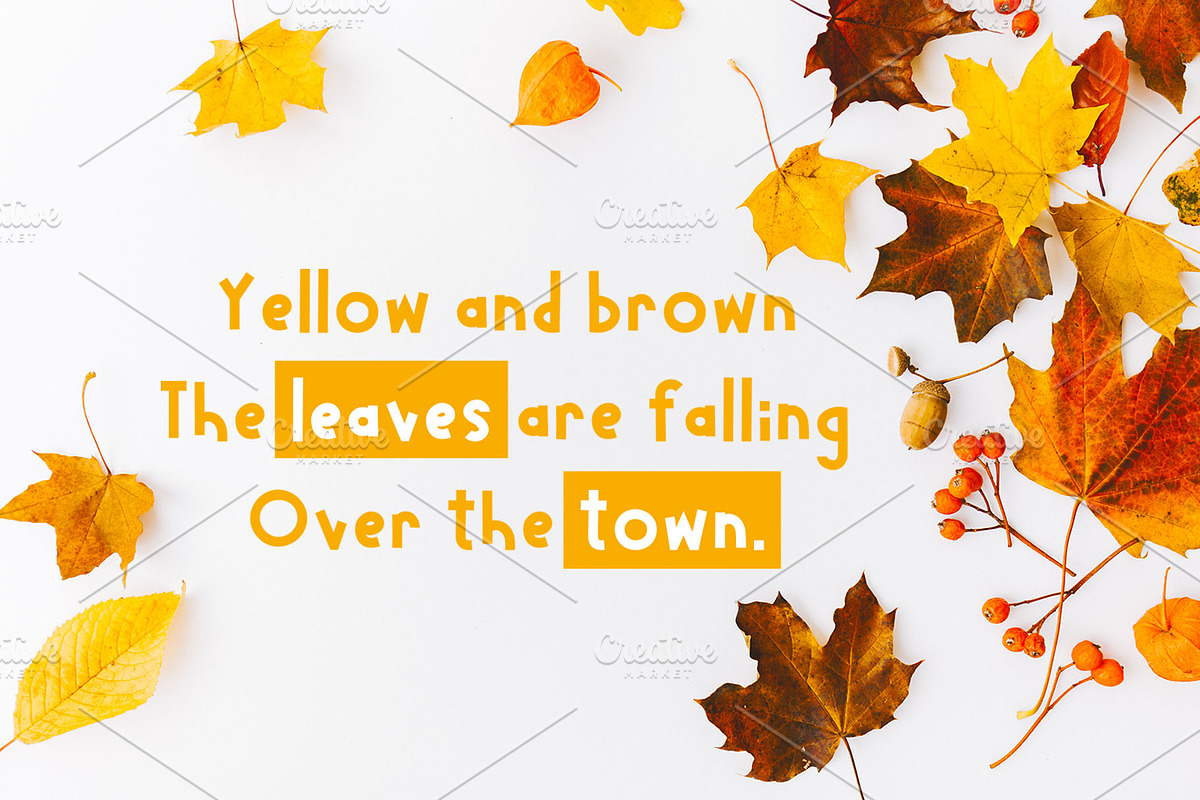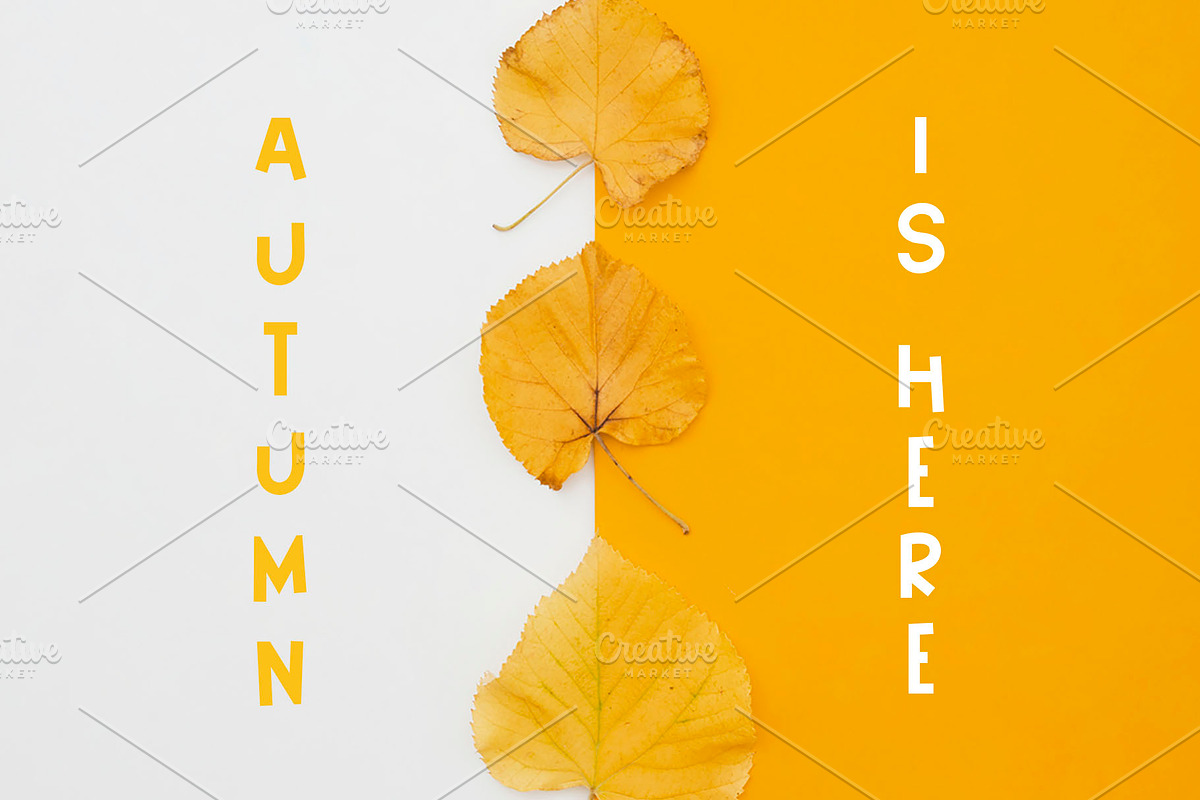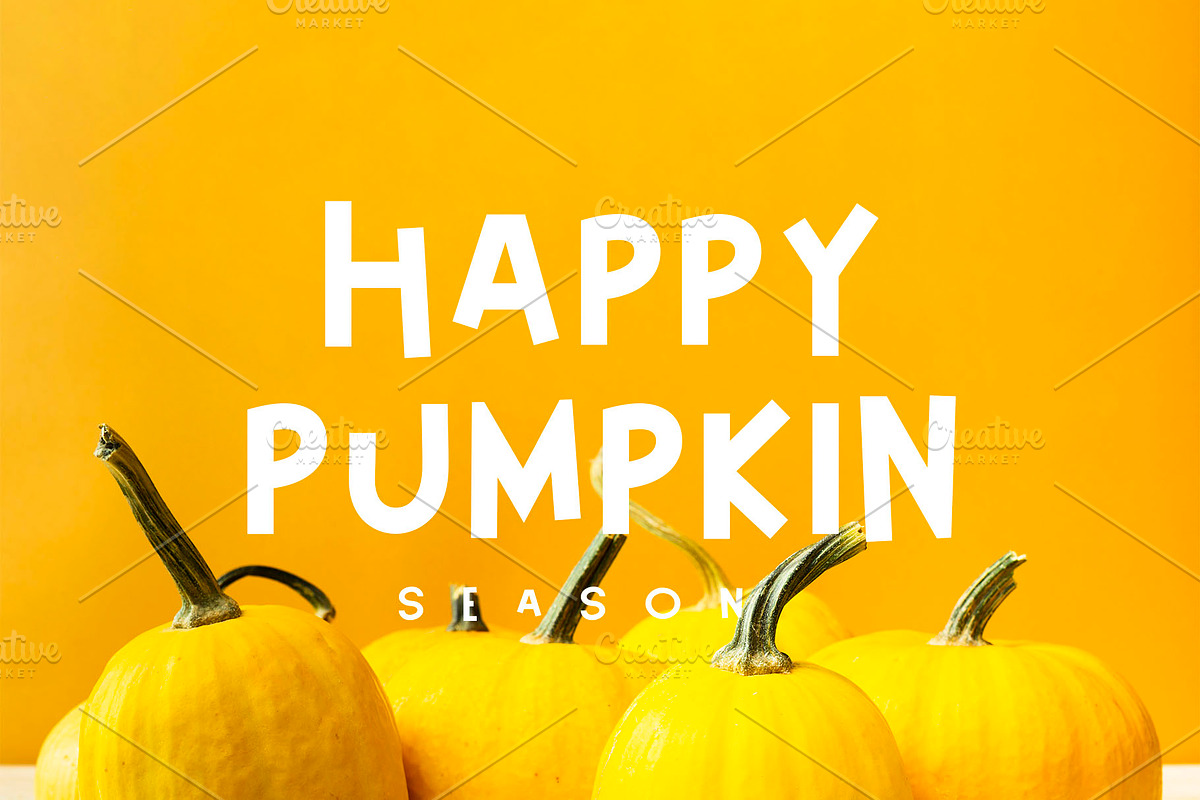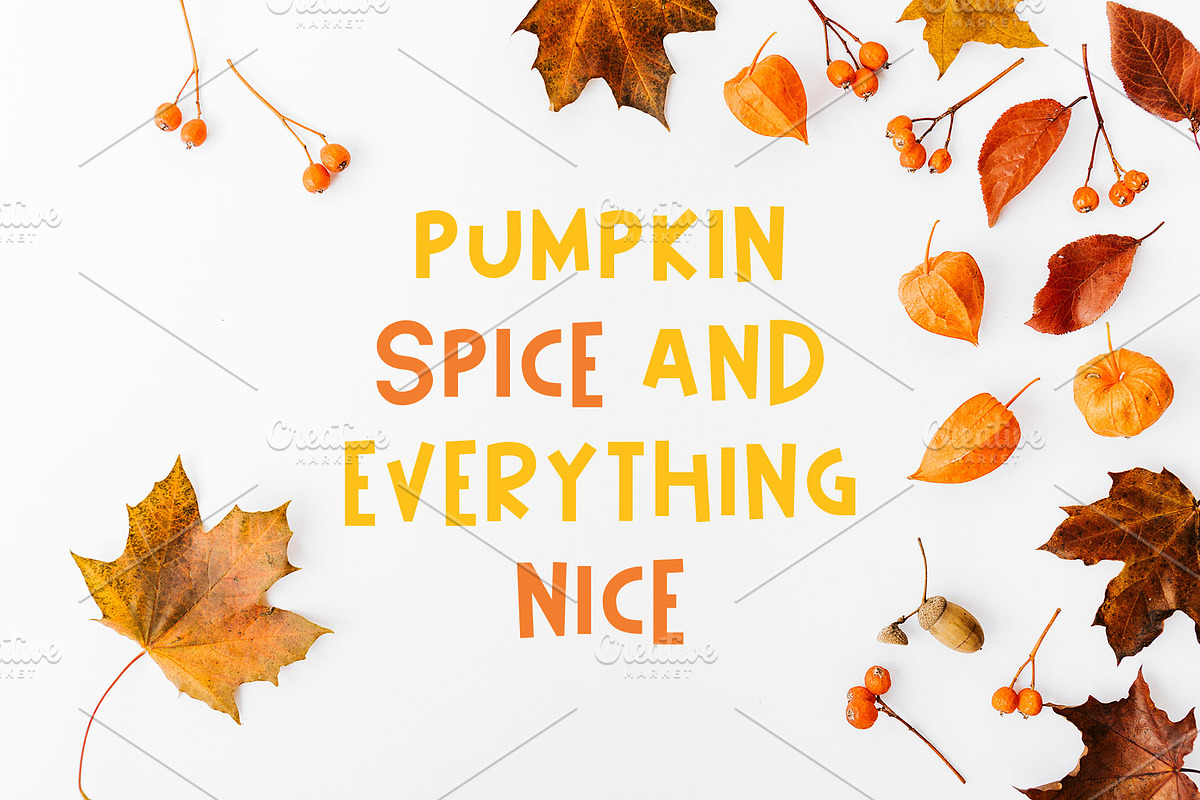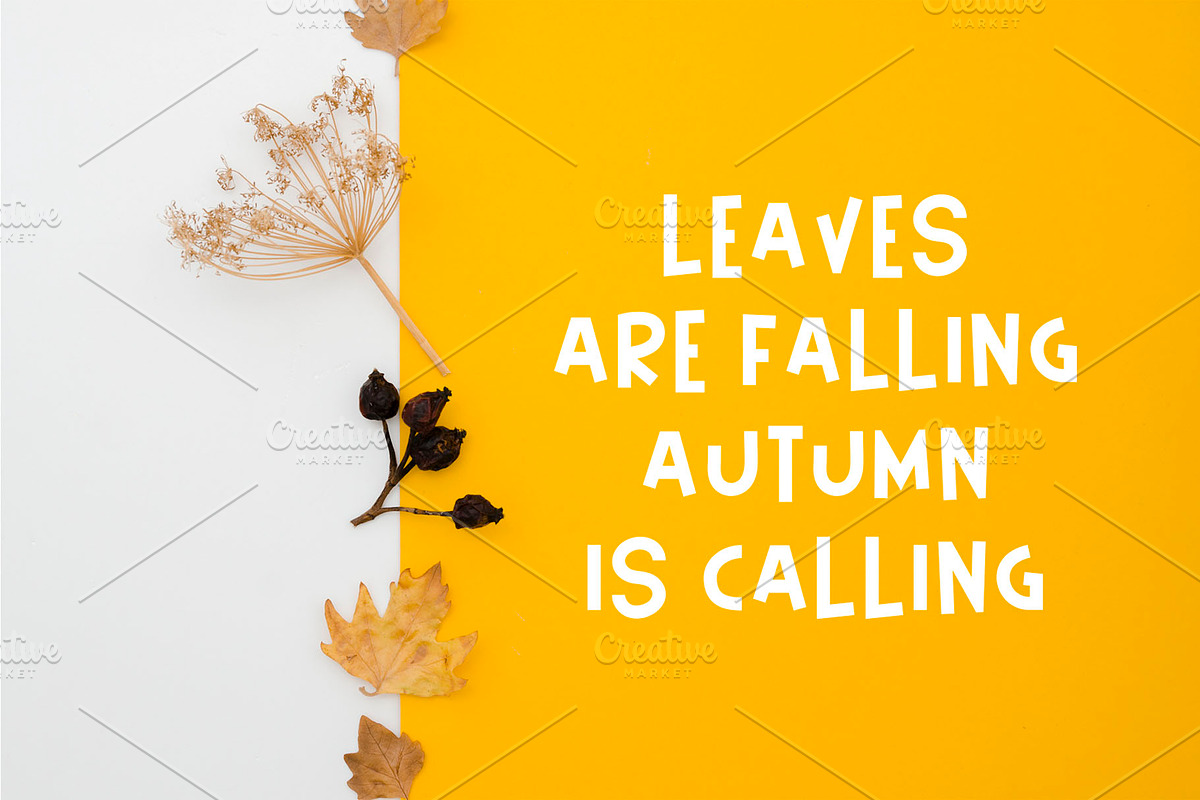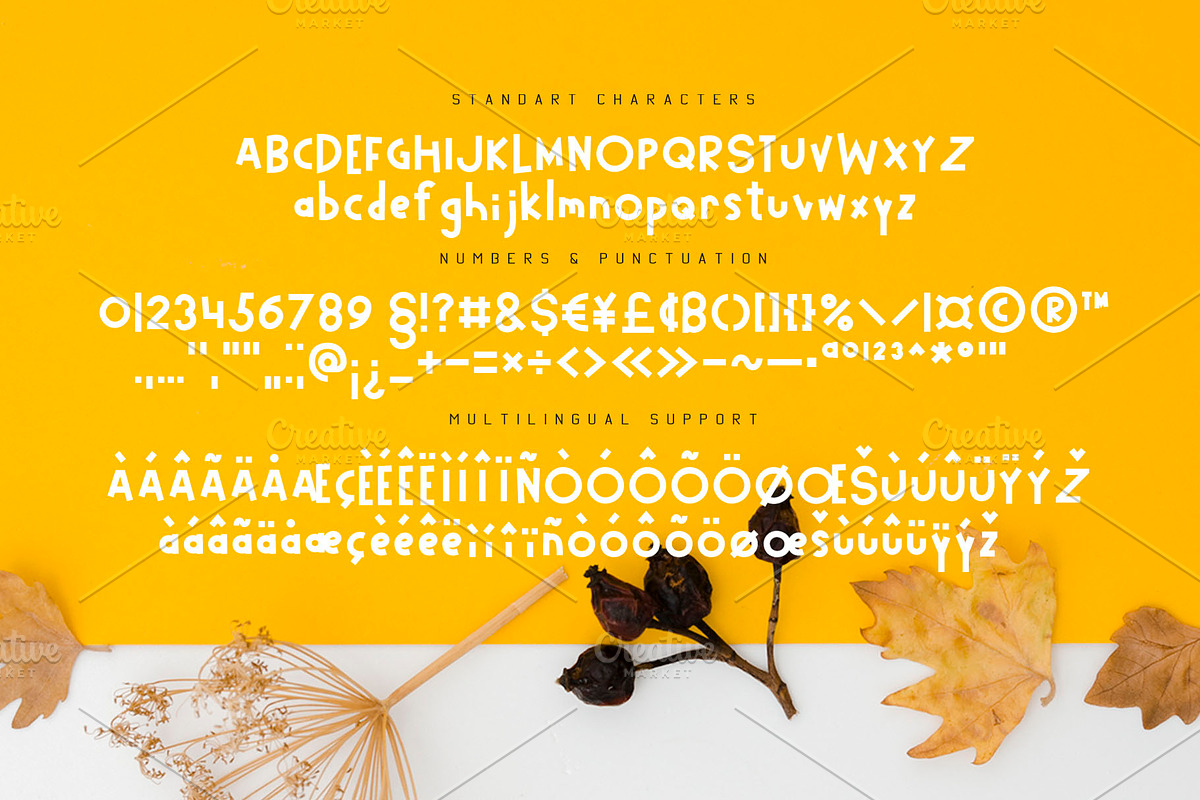
Happy Pumpkin Font
Happy Pumpkin is a fancy hand drawn font. Aimed for printing greeting cards, especially for quotes with humor. Can also be used on t-shirts design and other print products. Happy Pumpkin season!
Happy Pumpkin Font by Nadezda fits naturally into Branding, posters, packaging, typography.